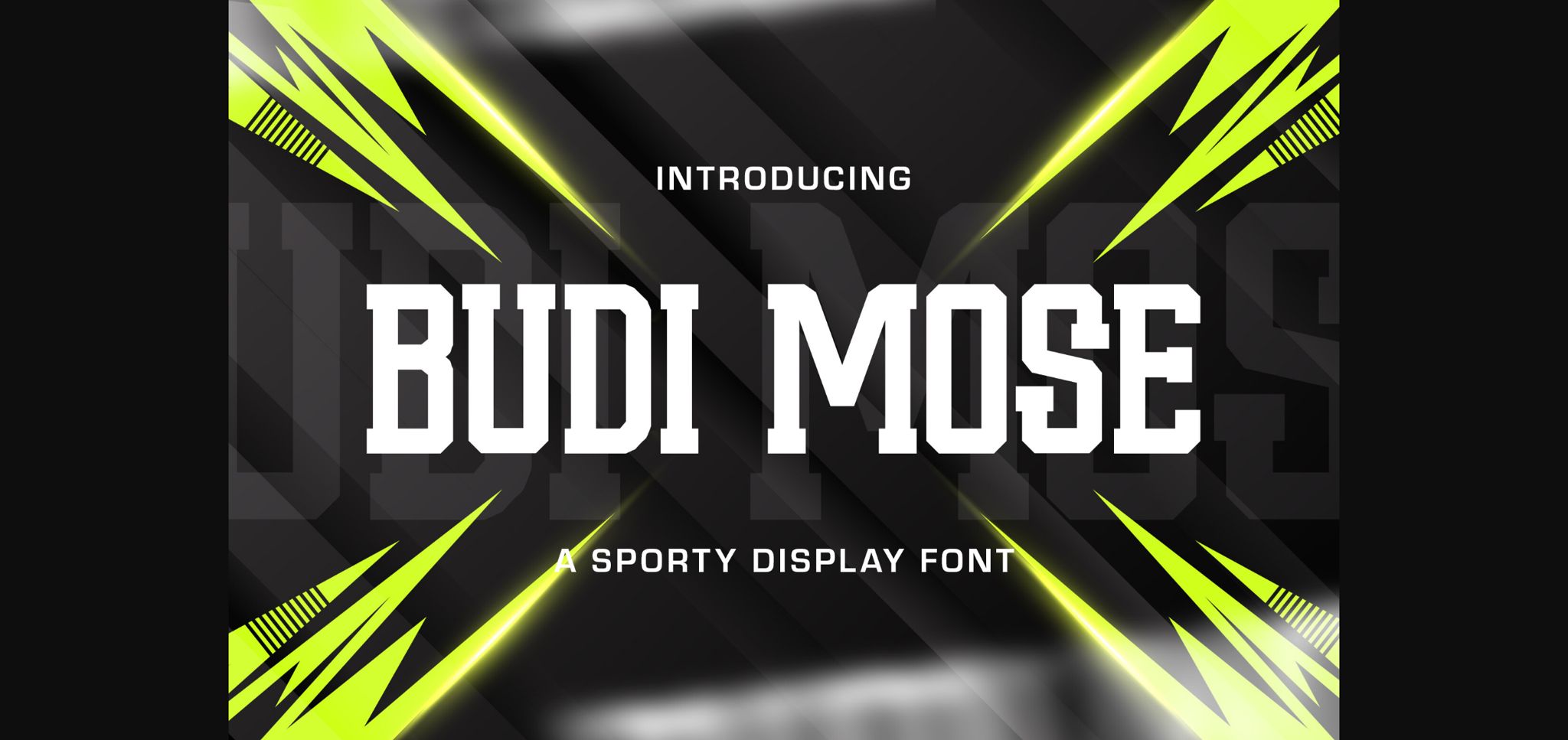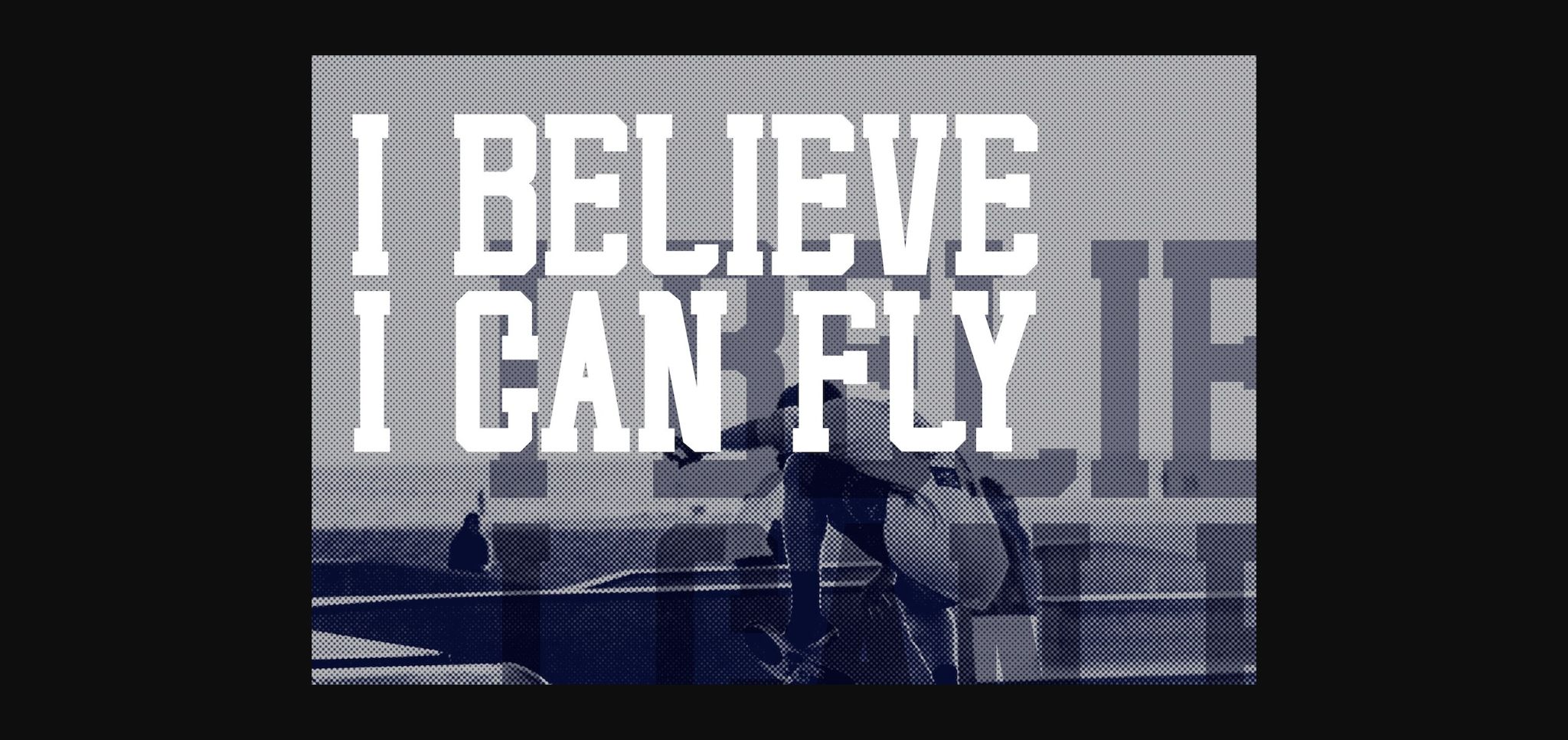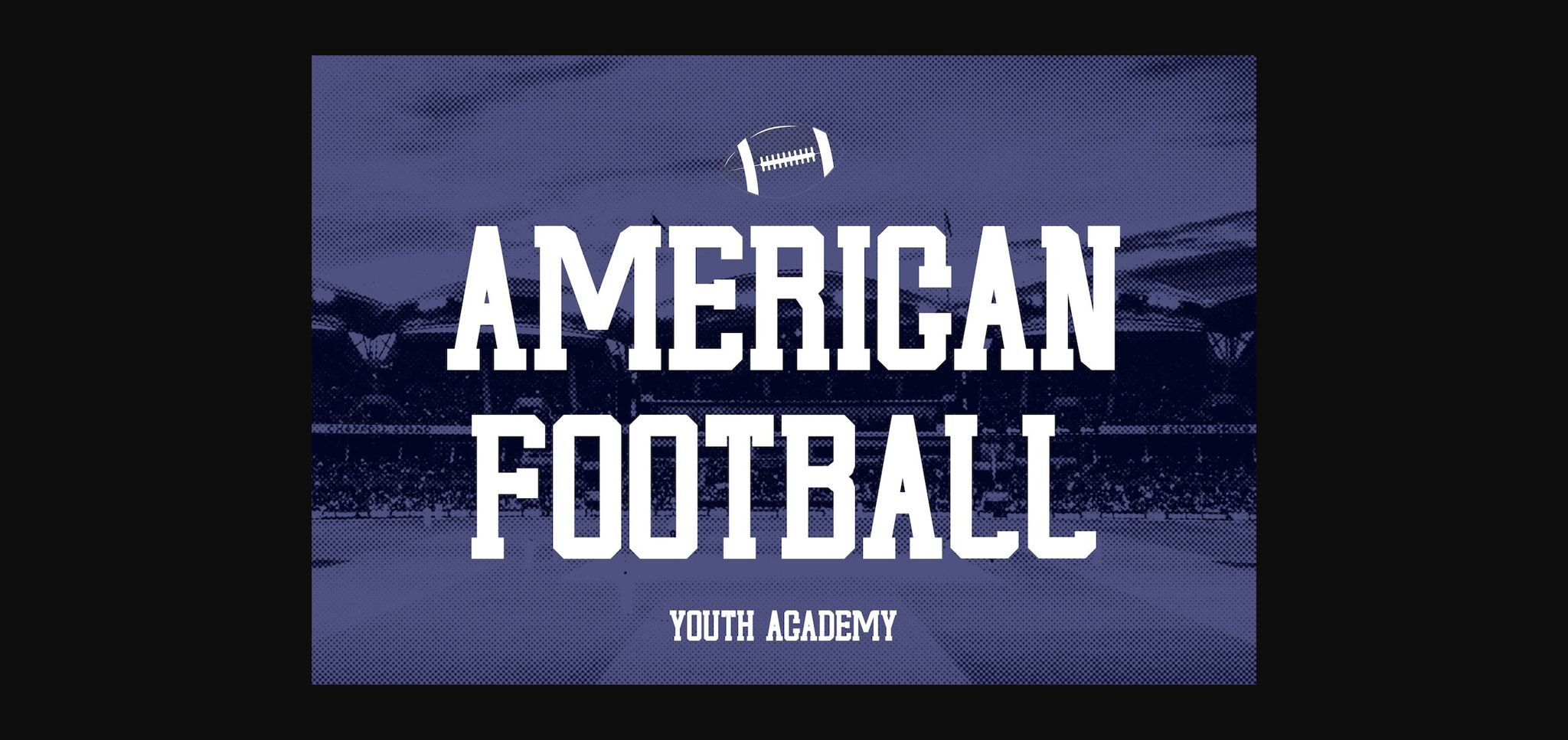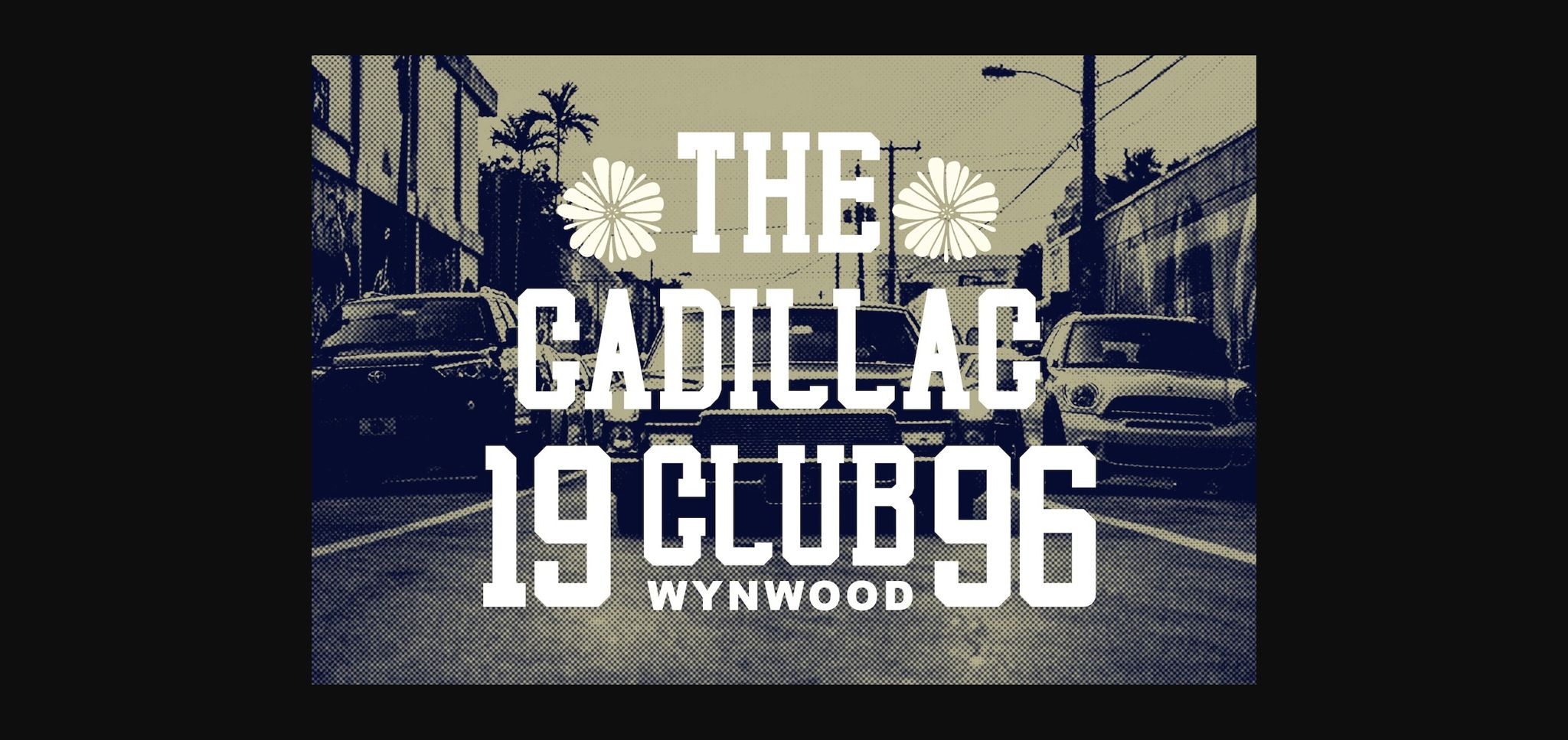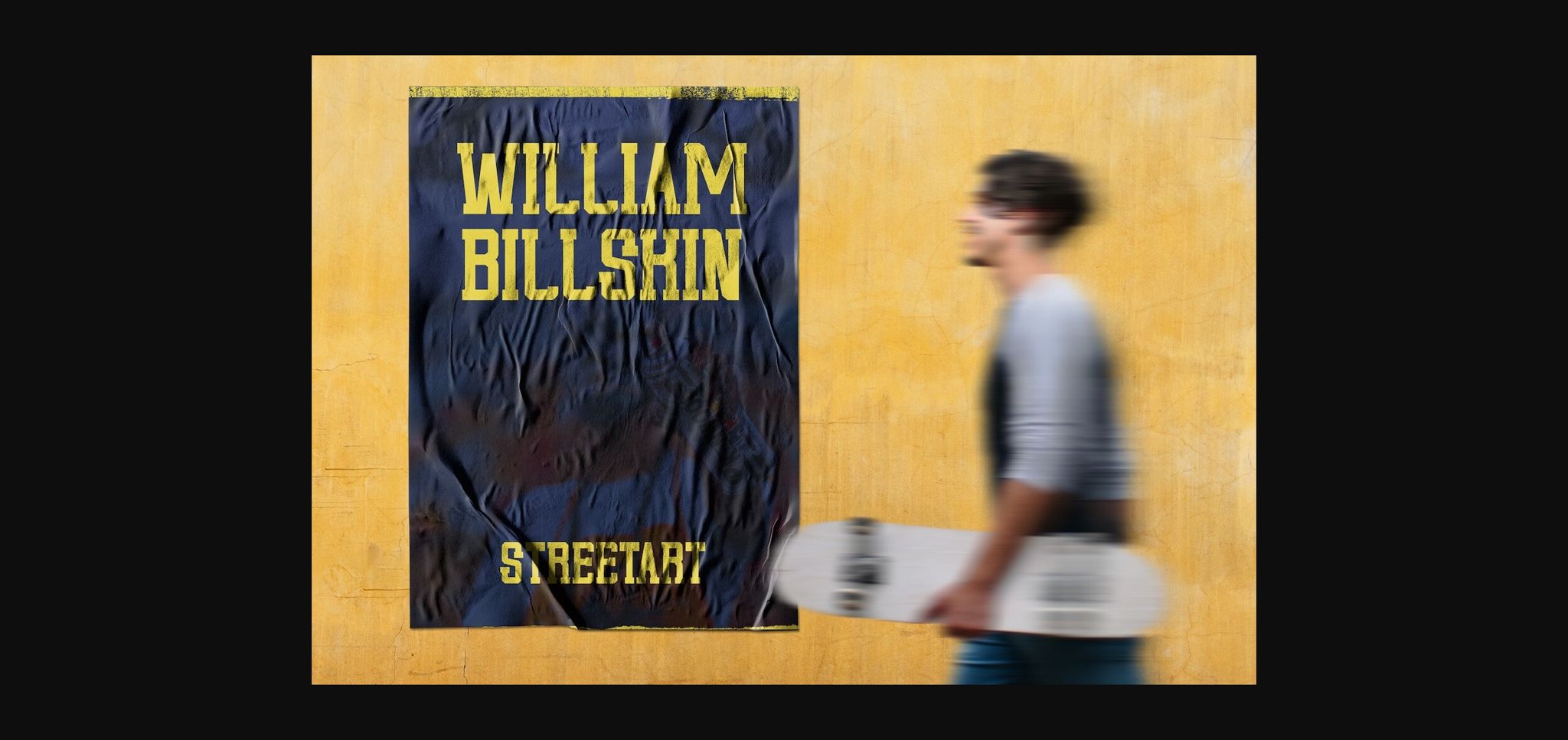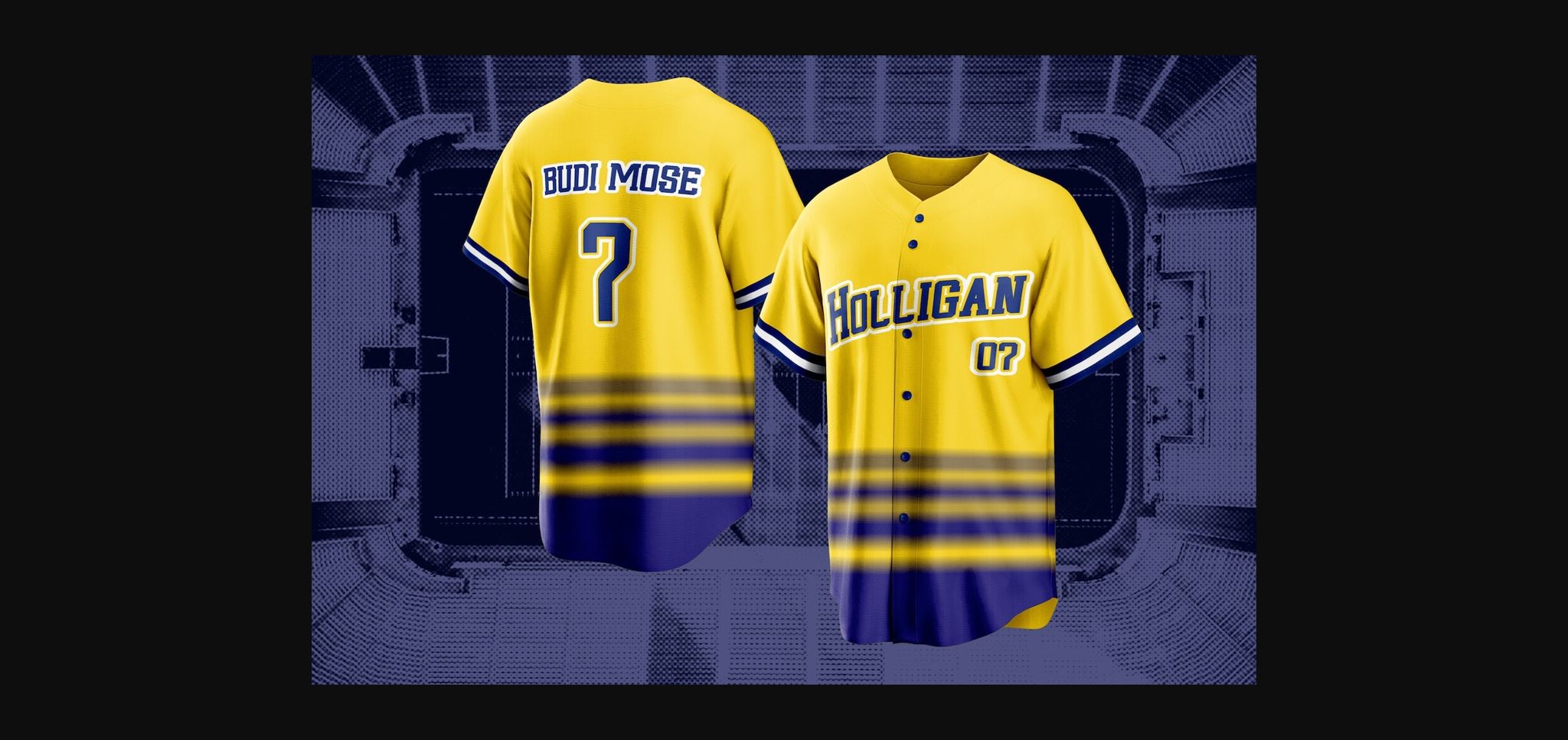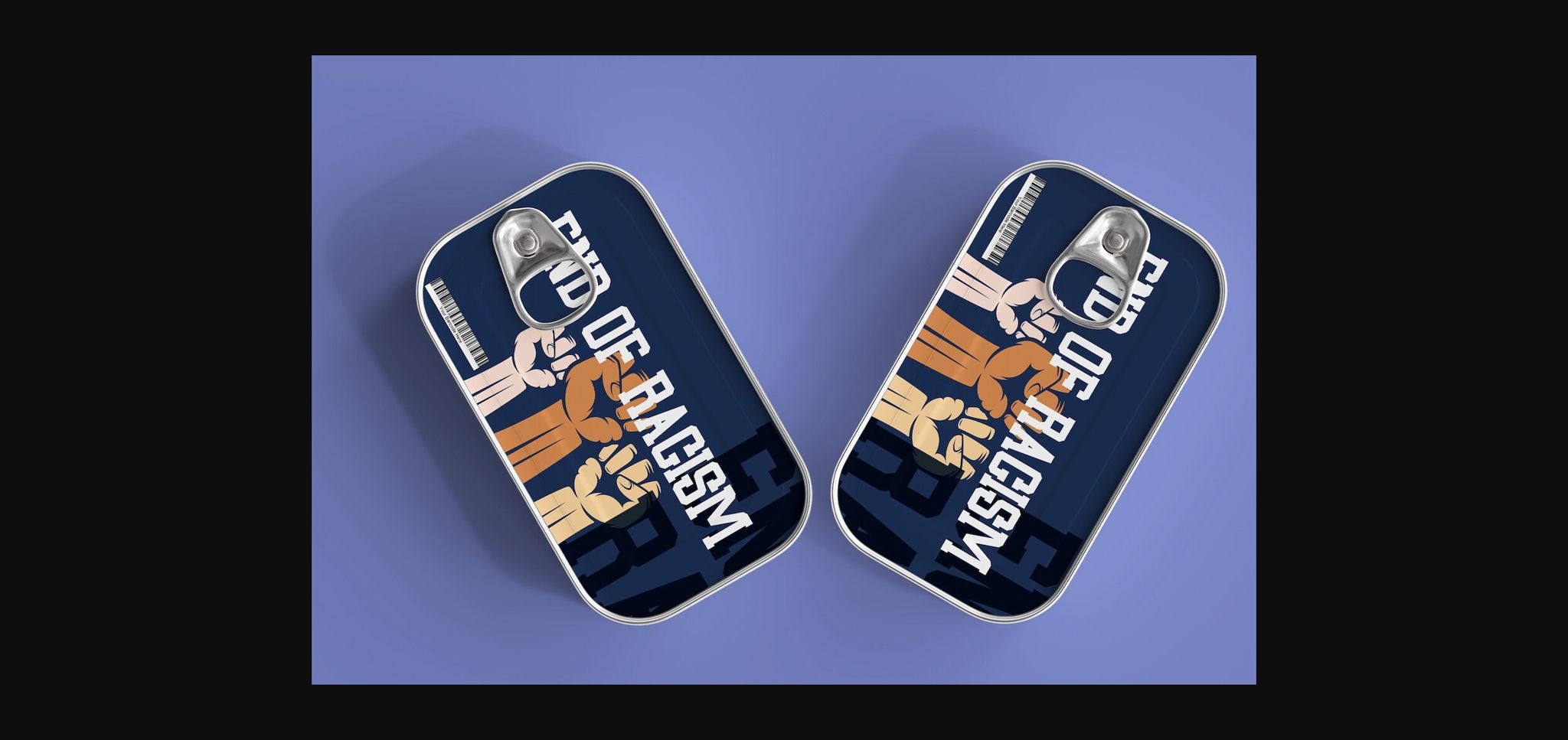
HomeSans Serif FontsBudi Mose Font Sans Serif Fonts Budi Mose Font FacebookXPinterestWhatsApp 1 of 11 ... Budi Mose Font Poster 2... Budi Mose Font Poster 3... Budi Mose Font Poster 4... Budi Mose Font Poster 5... Budi Mose Font Poster 6... Budi Mose Font Poster 7... Budi Mose Font Poster 8... Budi Mose Font Poster 9... Budi Mose Font Poster 10... Budi Mose Font Poster 11... About Budi Mose Font Budi Mose is a sporty and modern sans serif font. This playfully conceptual typeface font will look truly outstanding in a wide range of contexts. DOWNLOAD NOW People also explored Roadbay Inline Bold Condensed Font Christmas Arrows Font Home Furniture Font Crake Font With Rose Font About AZ College Font Edword Font Alaika Geo Font Healing Font 456 0 TagsBudi Mose Font Previous articleSuper Guardian FontNext articlePixel Sport Font LEAVE A REPLY Cancel reply Comment: Please enter your comment! Name:* Please enter your name here Email:* You have entered an incorrect email address! Please enter your email address here Website: Save my name, email, and website in this browser for the next time I comment. Personal Use Free Eva Personal Use Free Read more about this font Open Heart Personal Use Free Read more about this font Quickline Personal Use Free Read more about this font Bajt Rounded Personal Use Free Read more about this font BLOG Best Fonts for T-Shirt Design – Top 2025 Picks In 2025, t-shirt design has become more than just fashion—it's a form of self-expression. Whether you're... 5 Fonts That Will Dominate Design Trends in 2026 Top 10 Handwritten Fonts That Elevate Your Designs How to Install and Use Fonts on Windows, macOS, and Web Projects